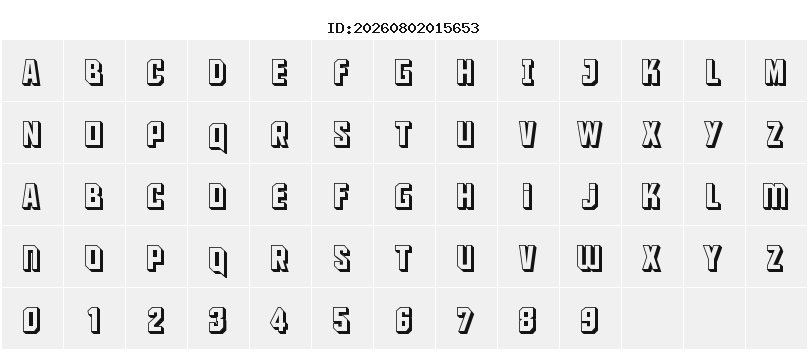
Maus Preview
• Font Name: Maus
• Full Font Name: Maus
• Designer: James Arboghast
Maus.ttf is a modern, elegant sans-serif font designed for ultimate readability and visual harmony. Perfect for branding, headlines, web design, and print materials.